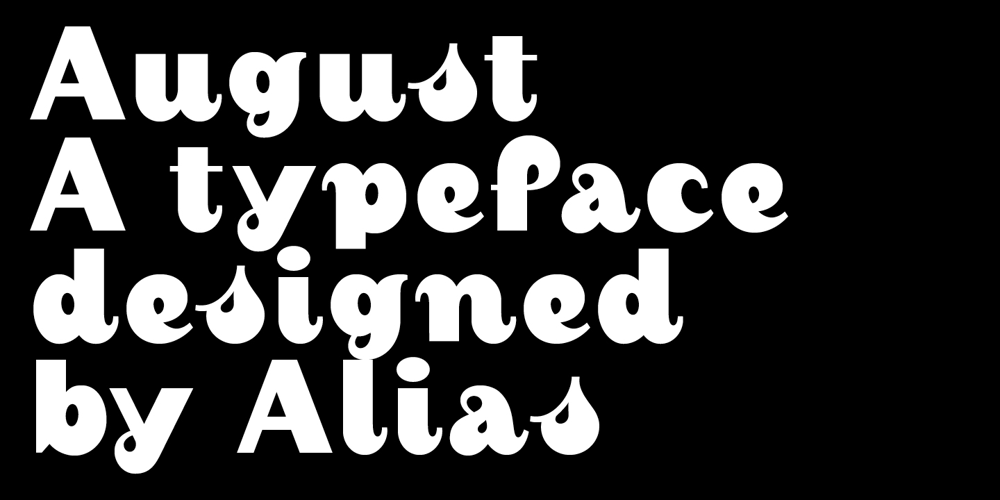
August
August font
August Font Family was designed by Gareth Hague and published by Alias Collection. August contains 10 styles and family package options. Almost a straightened italic typeface, August explores the idea of taking italic and script letterforms out of context and creating a typeface with a mix of references that does not look like too soft and feminine, but has a sharpness and angularity in some of its characters that jars against this softness.